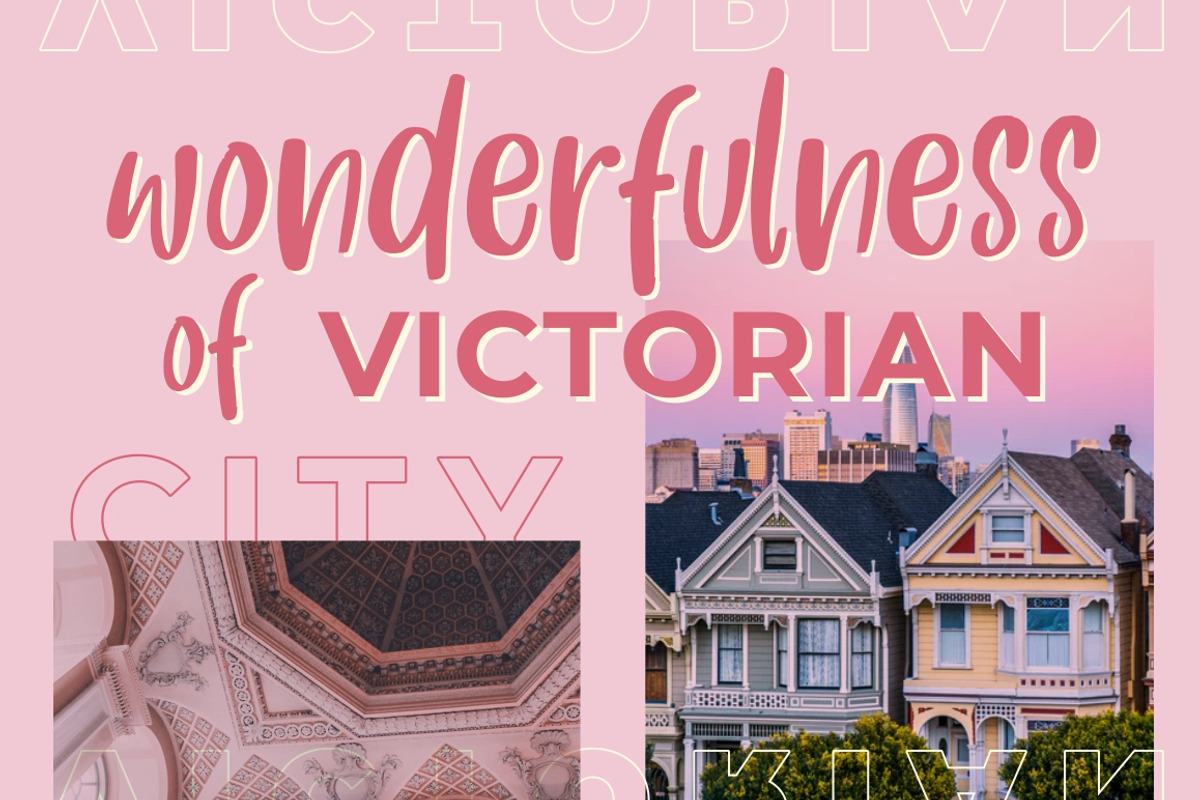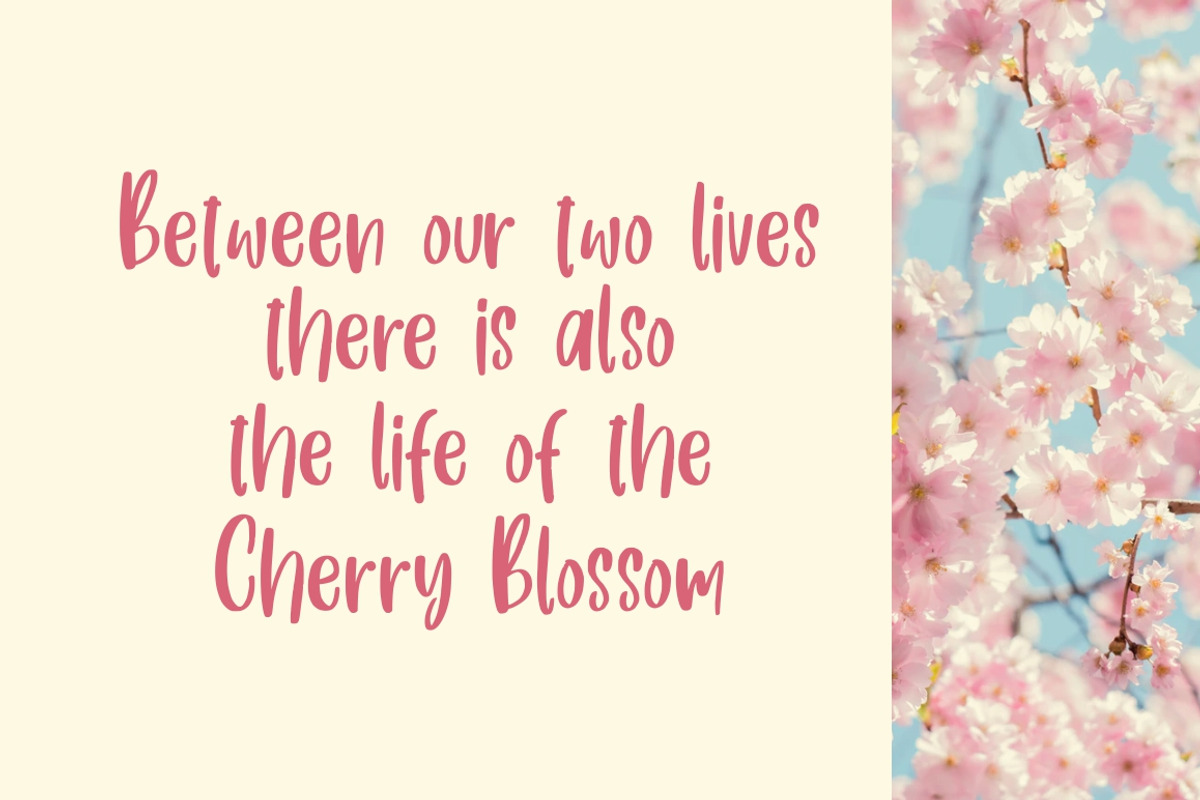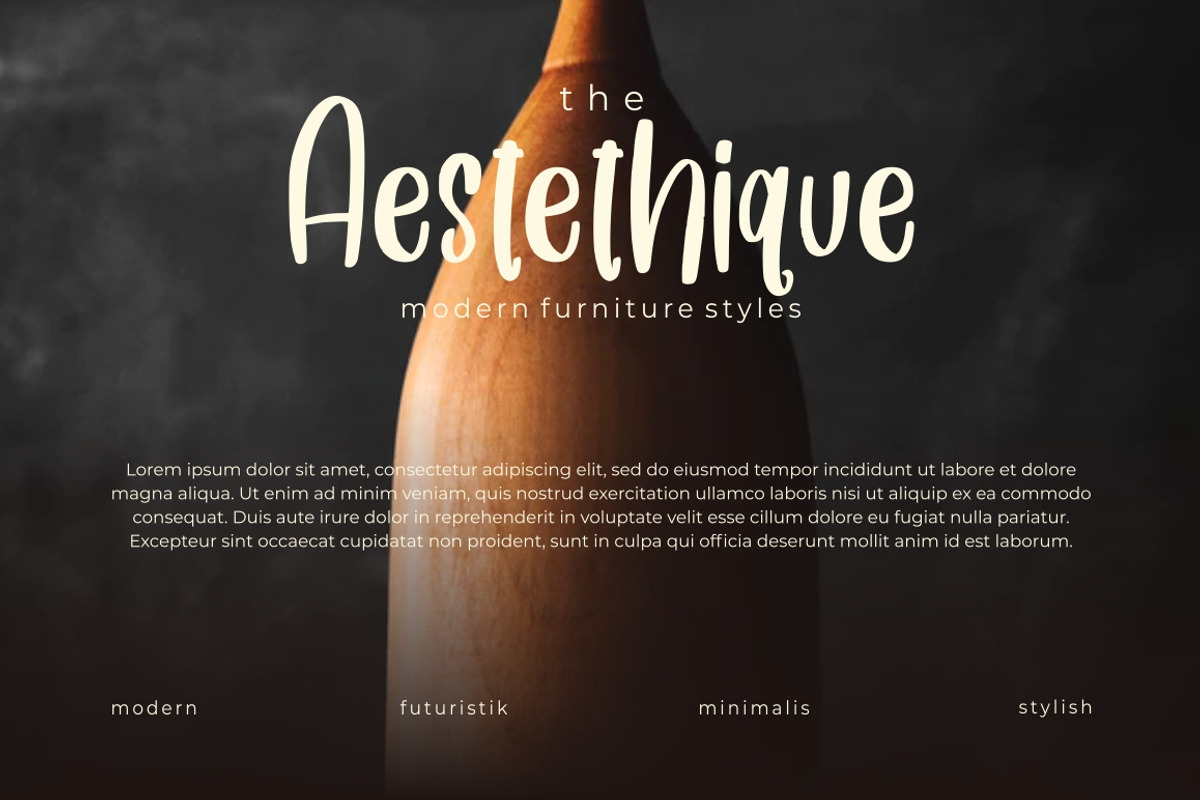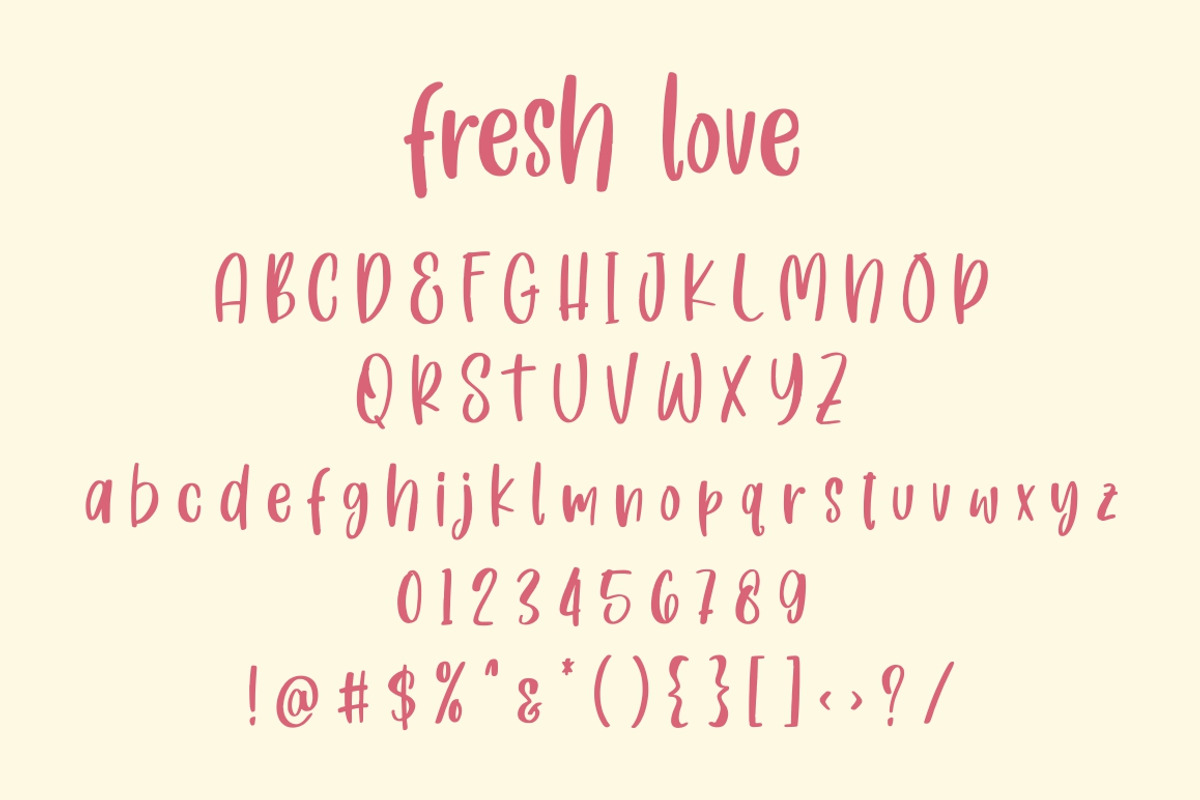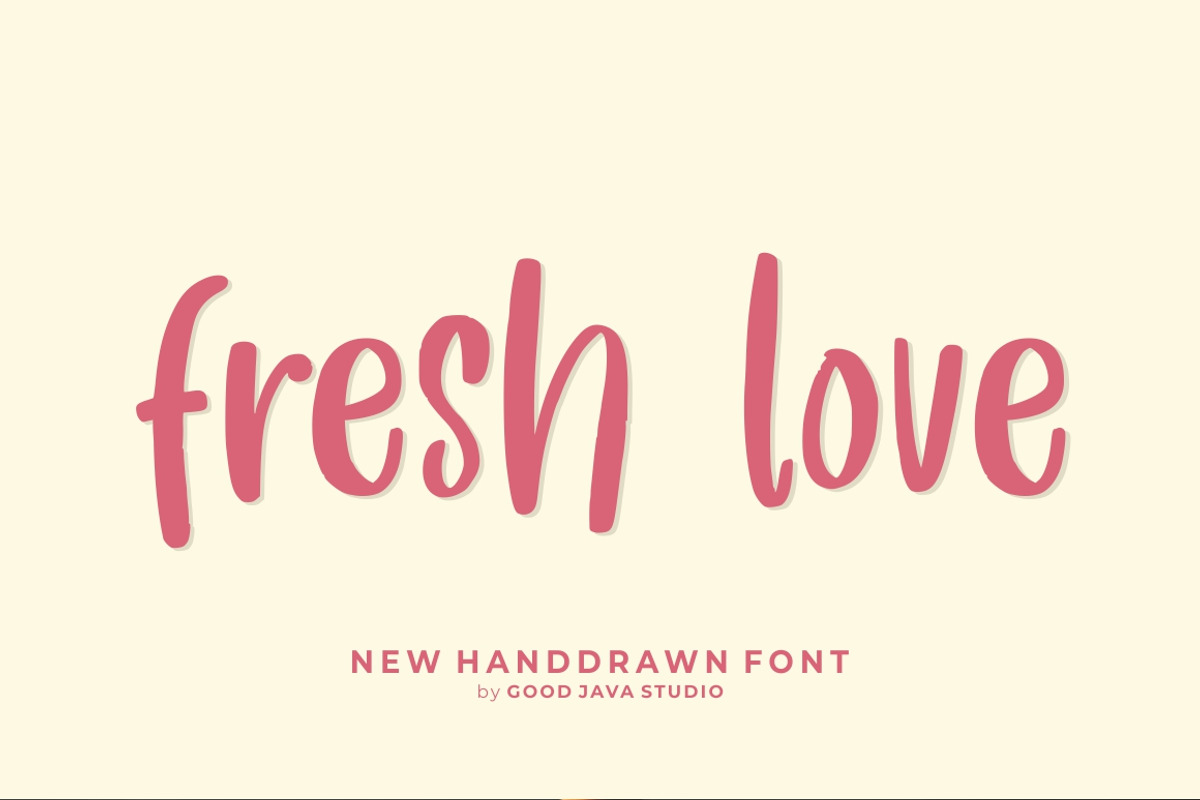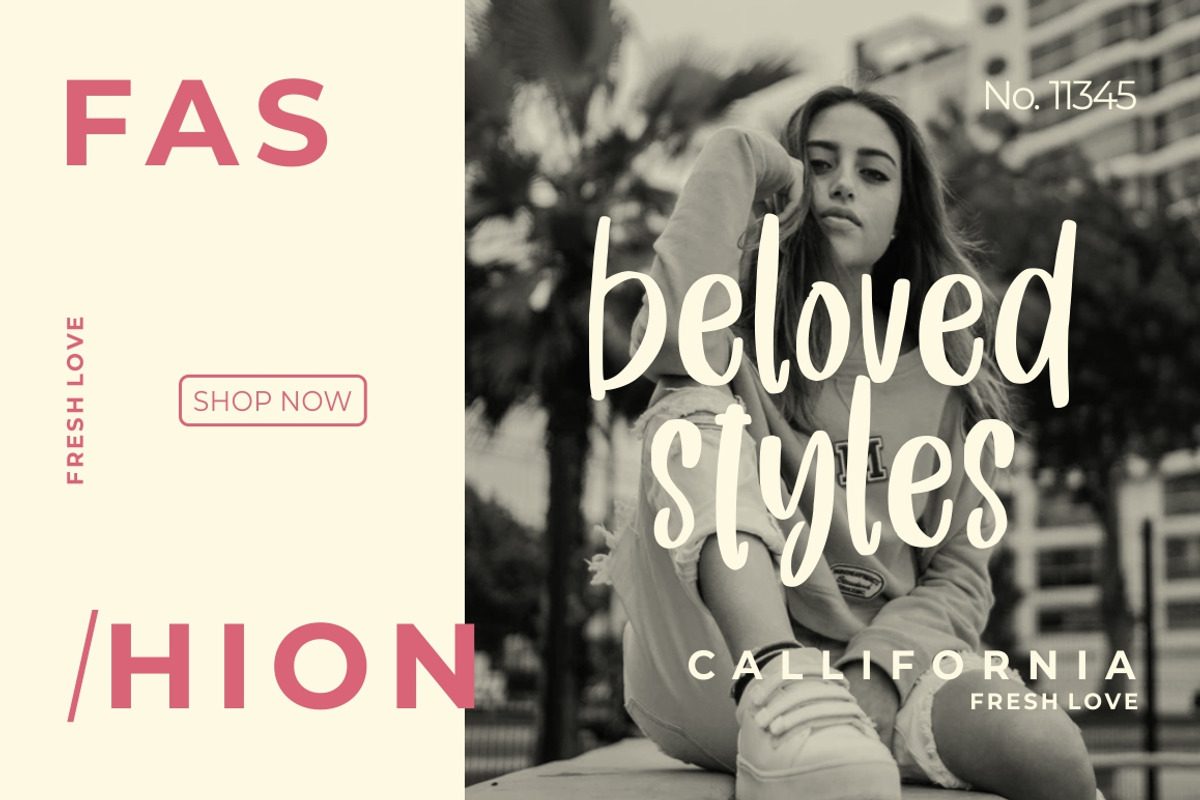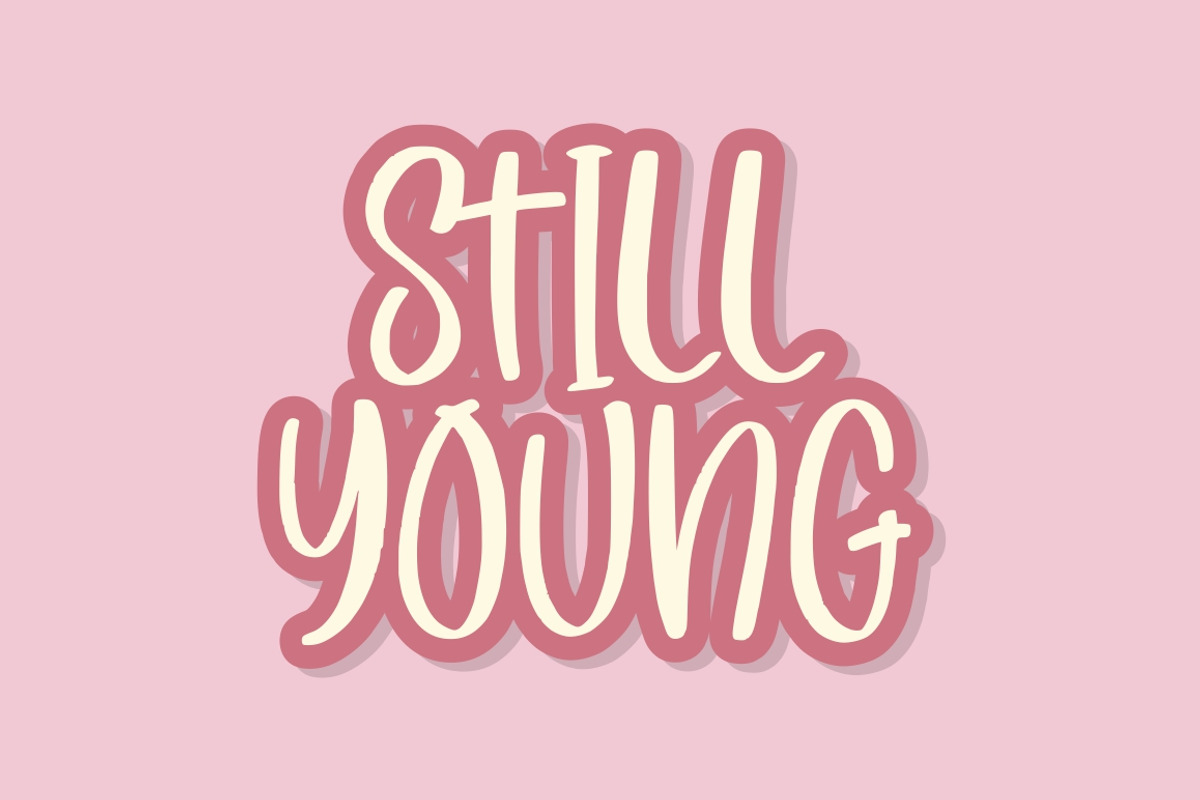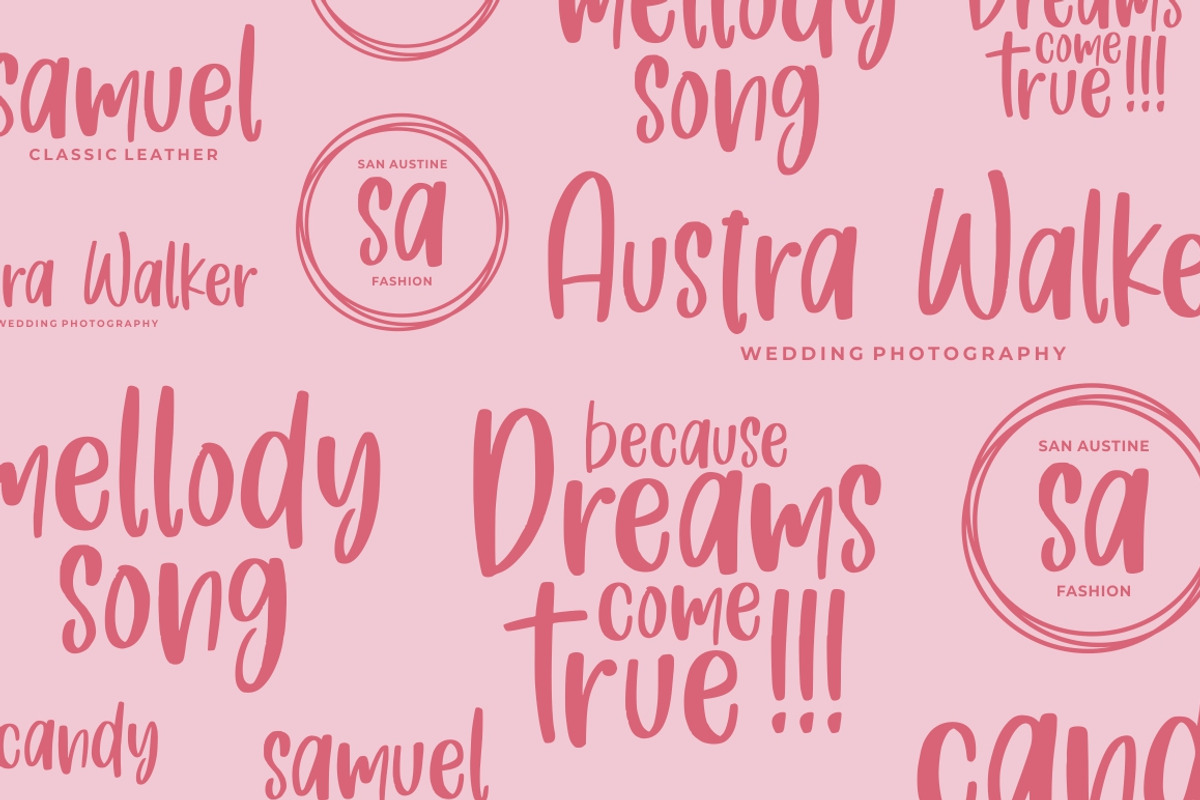
Fresh Love | Handwritten Font
Introducing Fresh Love | Handwritten Font
Fresh Love is lovely and funny handwritten font make from handdrawn ideas in typeface. This font includes full of Alphabetical glyphs, Numerals, and punctuation. This is so perfect for invitations, monograms, wedding, fashion, branding, label, handdrawn or logotype.
Ligature & Stylistic Set
Very great for branding, logotype, handletteing, invitations, or fashion branding.
- Fresh Love Regular
- Fresh Love Italic
Fresh Love | Handwritten Font by Good Java Studio fits naturally into Branding, posters, packaging, typography.